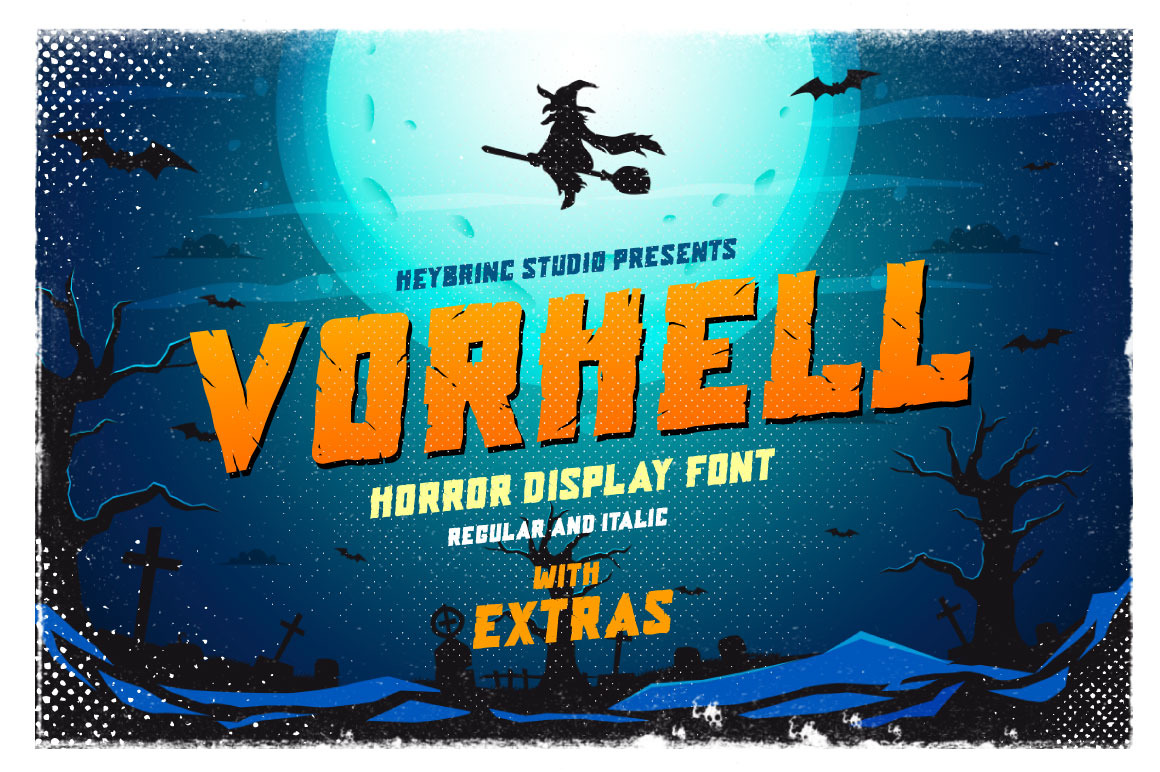
Vorhell Horror Font
Introducing new all caps display font that perfect for creating Halloween, Horror, Thriller theme projects. Inspired by classic Horror and Thriller movie posters. You can make a logo, quotes, poster, flyer, apparel, greeting cards, invitations using this font. Let's bring back vintage Horror vibes into your designs.